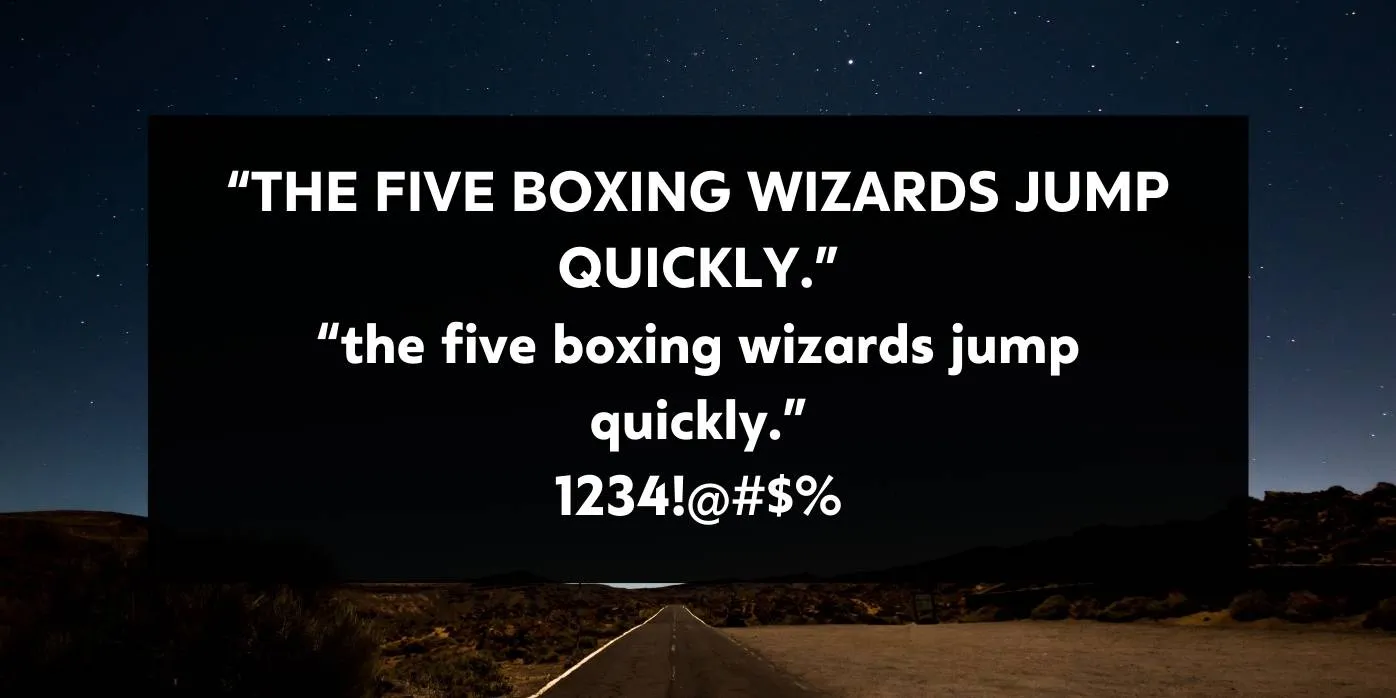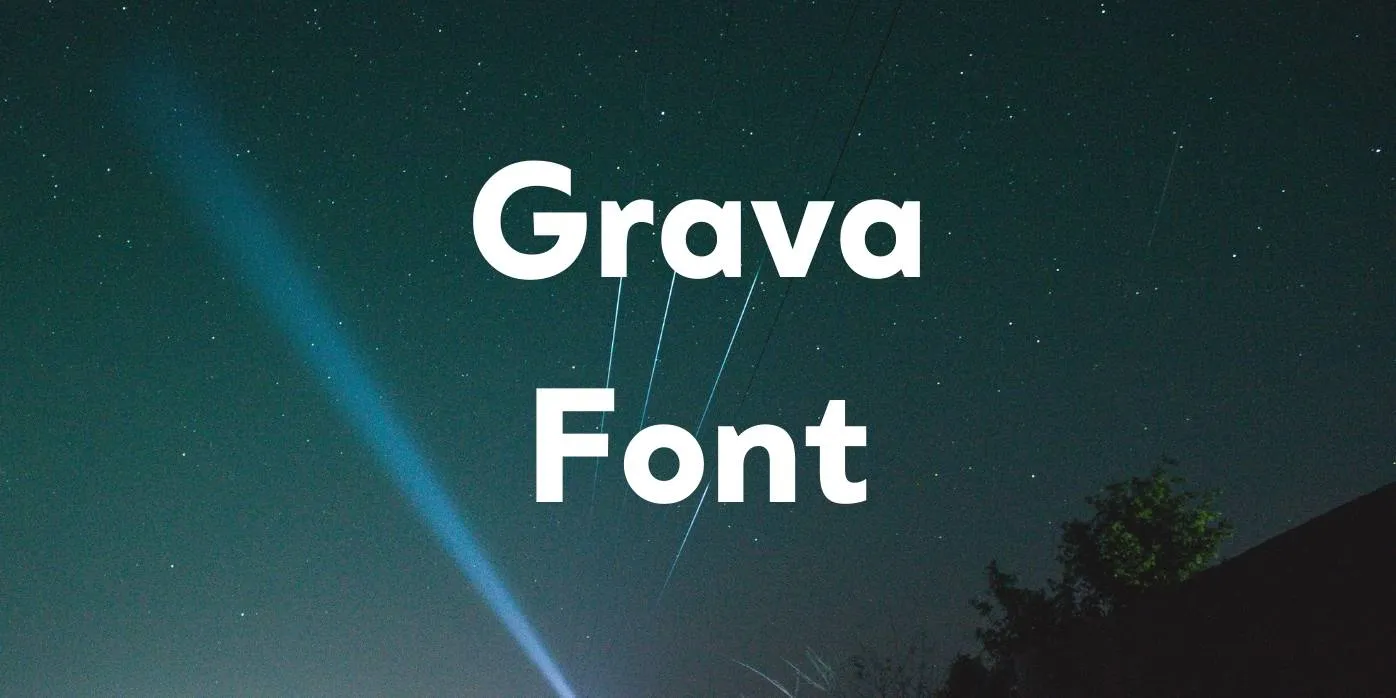
Grava Font
The Grava Font is a sans-serif typeface that has designed by Neil Summerour, a renowned name in the typeface industry, and published by Positype, a small but highly talented typeface foundry. Its purpose is to act as an introduction to the world of display fonts and pave the way for using them in graphic design projects. By combining two typefaces Grota and Grafotho into one, Grava offers a powerful and versatile font with support for Latin and non-Latin languages. Grava is compatible with many applications, such as Adobe Illustrator, Photoshop, and InDesign, making it a great choice for creating posters, logos, headlines, banners, book covers, and much more.
The font’s unique design allows designers to quickly create impactful visuals with its eye-catching character shapes and sharp edges. This typeface is very similar to the haboro sans font. Its generous x-height ensures legibility at smaller point sizes, making it suitable for large-scale applications. It also includes stylistic alternates and swashes, which make it easier to add flair and personality to designs.
This typeface is available to purchase in OpenType, TrueType, and web font formats, allowing them to be used on any platform. It also offers an extended character. Usage The Grava Font family is also ideal for creating logos. Its rounded edges and unique letterforms help to create visuals with the perfect balance of modernity and friendliness.
Its versatility is enhanced by its range of weights, enabling designers to create logos that are bold and impactful or soft and subtle, depending on the desired outcome. This typeface also works well in print applications. Its strong character shapes make it stand out from traditional sans-serif. Additionally, this font character set supports over 200 languages, making it a good choice for websites with international audiences.
This font is also paired with the rotis serif font. This font family is also very legible at small sizes, making it an excellent choice for both large displays and website text. That is particularly well suited for web design because of its versatility. The font comes in eight weights, from thin to black, which is great for creating typographic contrast.
FAQs! Grana Font is Designed & Published By? Grava font is a sans-serif typeface that has designed by Neil Summerour, a renowned name in the typeface industry, and published by Positype. Why Grana Font is the Best?
This typeface is ideal for creating logos. Its rounded edges and unique letterforms help to create visuals with the perfect balance of modernity and friendliness. It’s Available on Google Grana Font Library? No, that typeface is not available on google font library, but you can easily download it and enjoy this stylish typeface for our design.